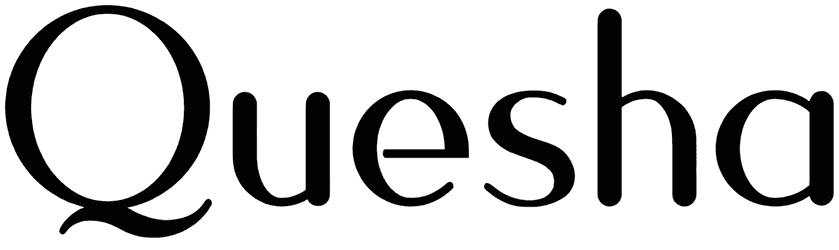
Quesha Font
Quesha is a functional geometric font in which hard curves with fine lines blend well. This sans serif font has the power to turn any minimal and simple design into a timeless and infinite effect. So, if you have not yet found the right font for letter writing, wedding card design, or headline printing, you won’t regret using Quesha.
Born from a modular font project, Quesha mixes a geometric construction with pure organic exceptions. Contrasted, readable, elegant and friendly, Quesha is a modern classic.
It features a complete character set, including standard and discretionary ligatures.